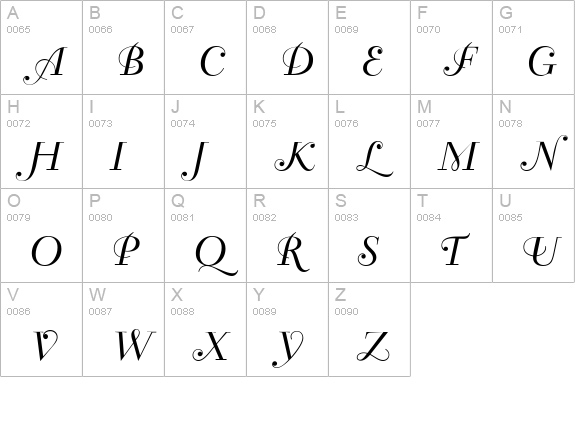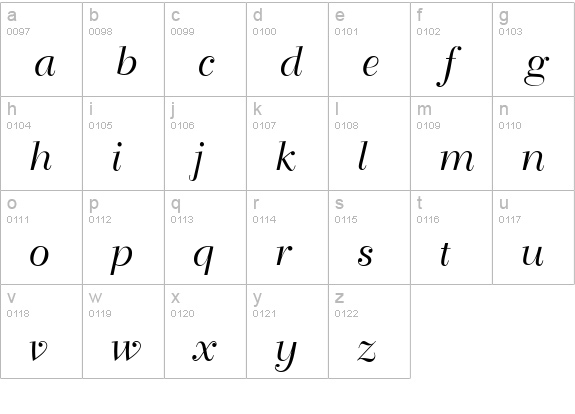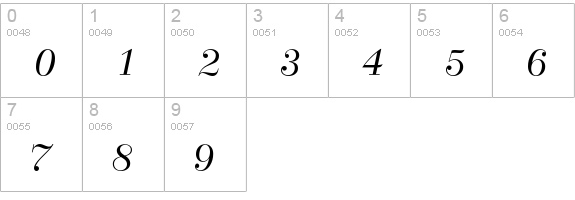
TravellerScript Font Details
TravellerScript is a stunningly elegant font that combines classic calligraphy with a modern twist. With its graceful, flowing strokes and delicate curves, this font captures the essence of wanderlust and adventure. Each letter has been meticulously crafted to exude a sense of timelessness and sophistication. What sets TravellerScript apart is not only its beauty, but also its accessibility. It is a free font that can be easily downloaded at FontsMarket.com, making it available to anyone who wants to add a touch of elegance to their projects. Whether you're designing a wedding invitation, creating a logo for a travel agency, or simply looking to add a touch of class to your personal correspondence, TravellerScript is the perfect choice. Its versatility is another standout feature. TravellerScript can effortlessly adapt to any design concept, seamlessly blending with other fonts and elements to create a harmonious composition. Whether you prefer a minimalist aesthetic or a more elaborate design, this font will elevate your work to a whole new level. TravellerScript's legibility is exceptional, ensuring that your message will be conveyed with clarity and style. It strikes the perfect balance between readability and artistic flair, making it suitable for a wide range of applications. Whether it's a headline, a caption, or a body of text, TravellerScript will captivate your audience and leave a lasting impression. So why wait? Download TravellerScript today and unlock the limitless possibilities it offers. With its timeless elegance, accessibility, and versatility, this font is a valuable addition to any designer's toolkit. Experience the beauty of TravellerScript and let your creativity soar.